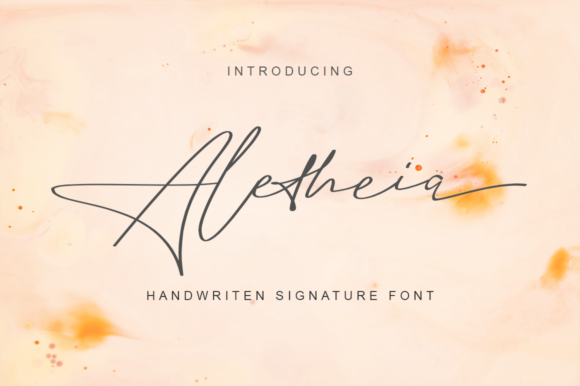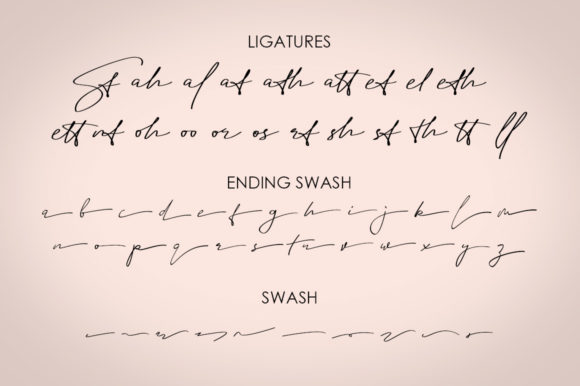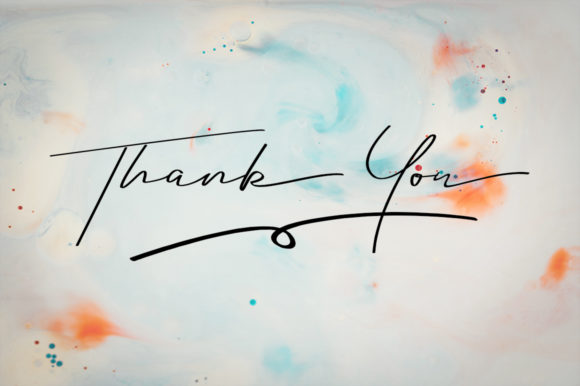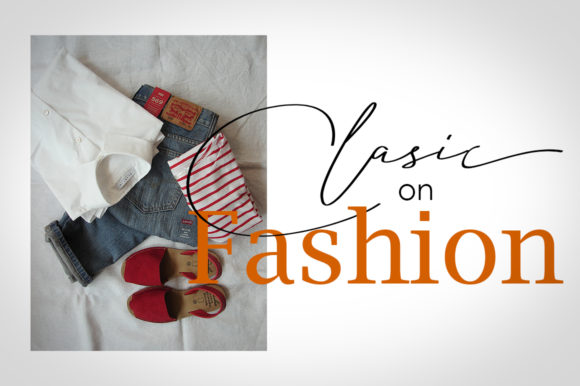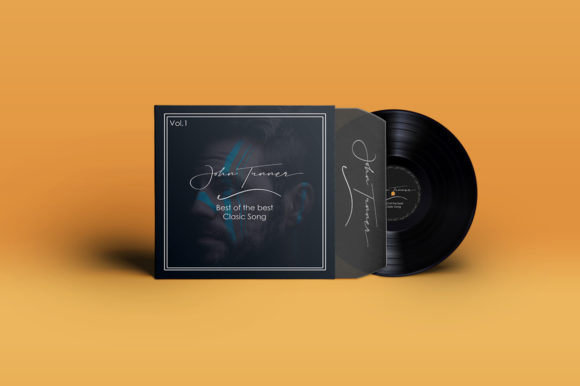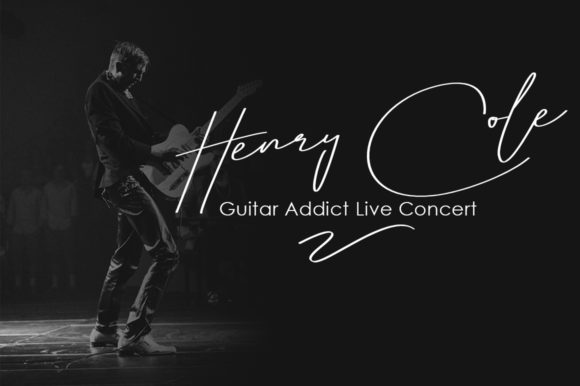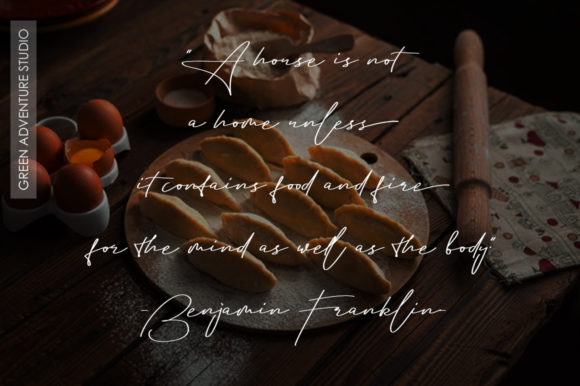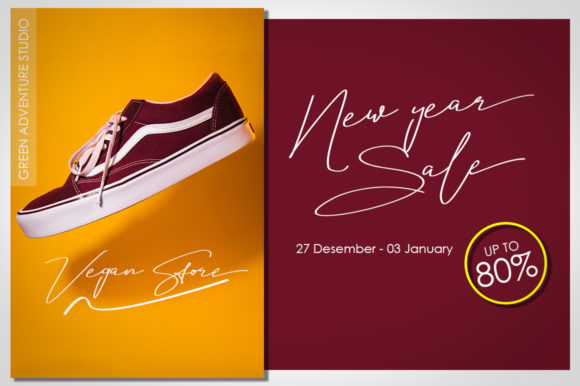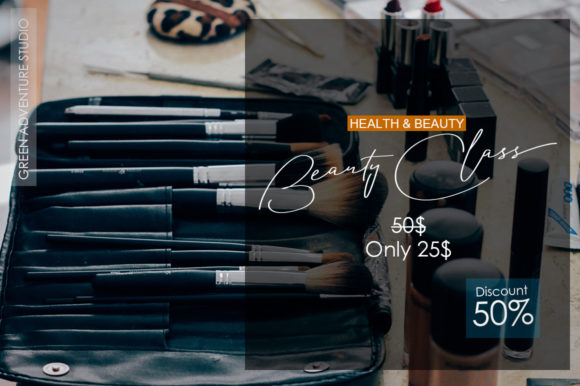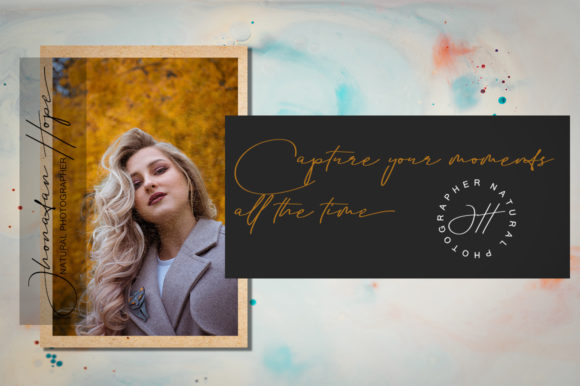
Aletheia Font
Aletheia is a stunning and elegant script font featuring a heartfelt and sincere look. Fall in love with this outstanding signature font!